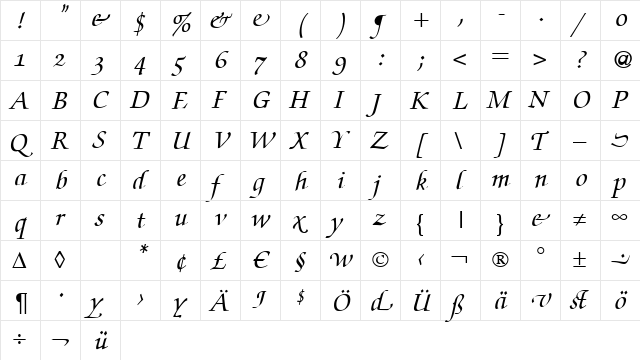
ZabriskieScriptSwash BoldItalic Font Preview
Design Context for ZabriskieScriptSwash Typeface
ZabriskieScriptSwash flows with the natural rhythm of handwritten lettering, making it ideal for designs that call for warmth and personal expression. The heavy weight commands attention and anchors typographic hierarchies.
Font Pairing: Combine ZabriskieScriptSwash with a simple geometric sans for maximum contrast — the tension between flowing curves and clean structure is a classic typographic pairing.
Pro Tip: Pair ZabriskieScriptSwash with a clean sans-serif for supporting text. The contrast between fluid script and geometric structure creates an elegant typographic hierarchy.